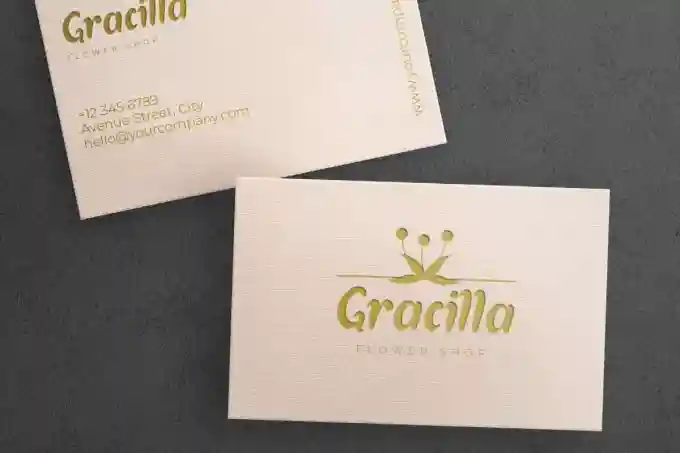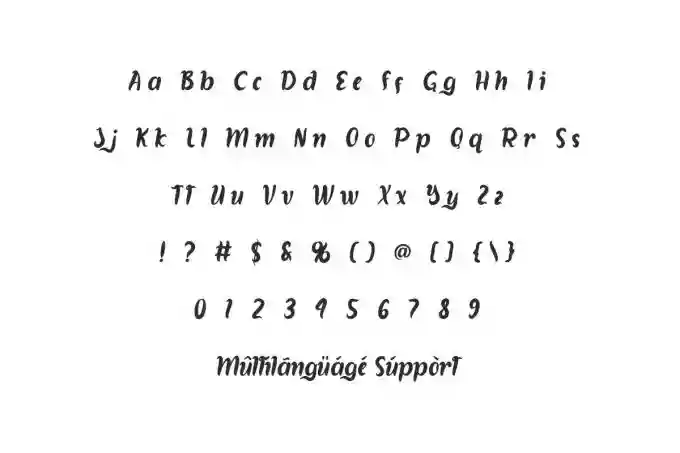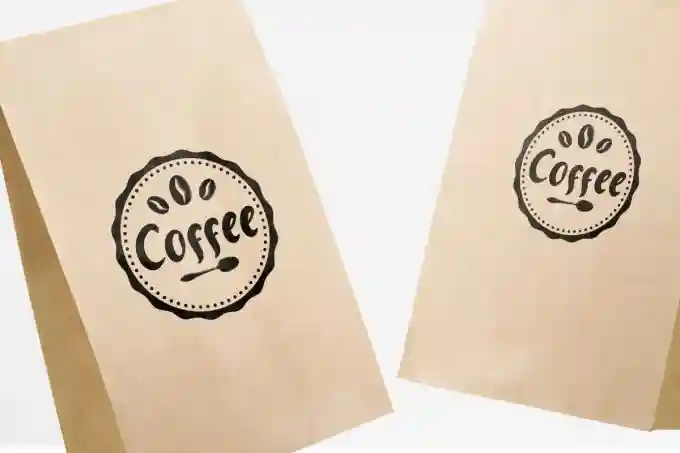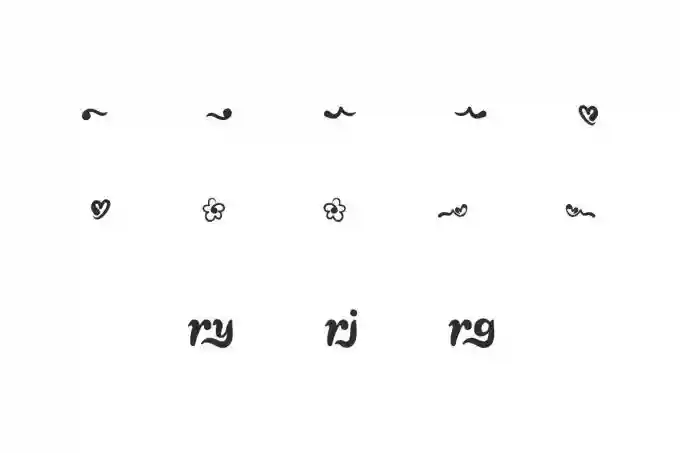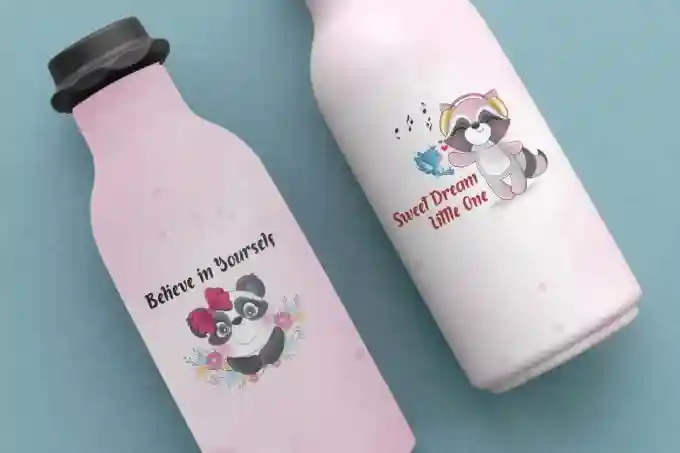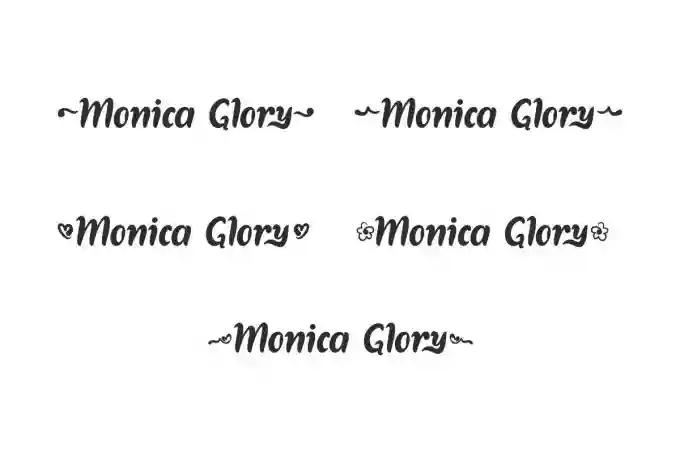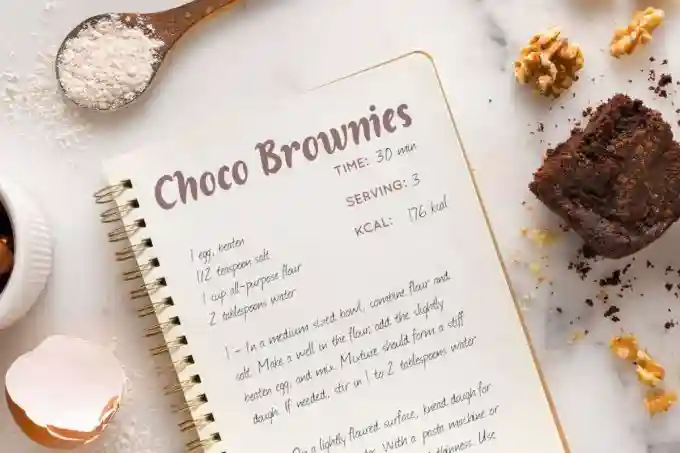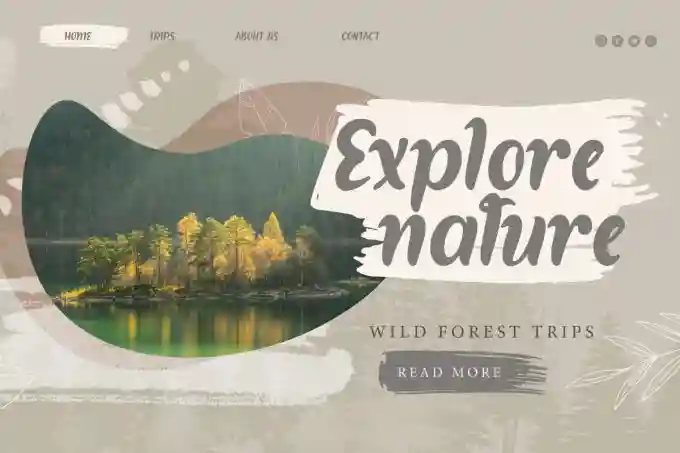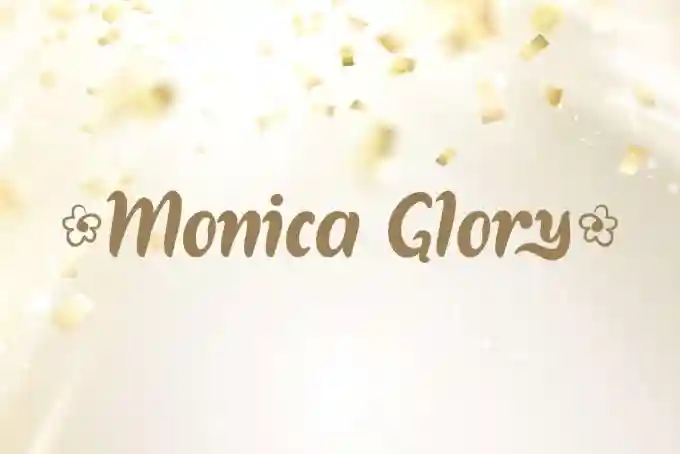
Monica Glory Font is an adorable handwriting font, by VinType Studio. This type font will make your designs look naturally cute and exude boundless sweetness. This font will be suitable for many industries, such as bakery and pastry, restaurant, florist, advertisement, author and writer, beauty product, handicrafts, homeware, printing, publishing, and more!
Monica Glory Font includes full set of Uppercase and Lowercase Basic Characters, Numerals and Punctuation, Swoosh, and Ligature. This bubbly font will make you want to use it in various types of designs, such as label, product packaging, invitation, business card, poster, brand image, cover, custom design, brochure, quote, screen printing, website, etc.